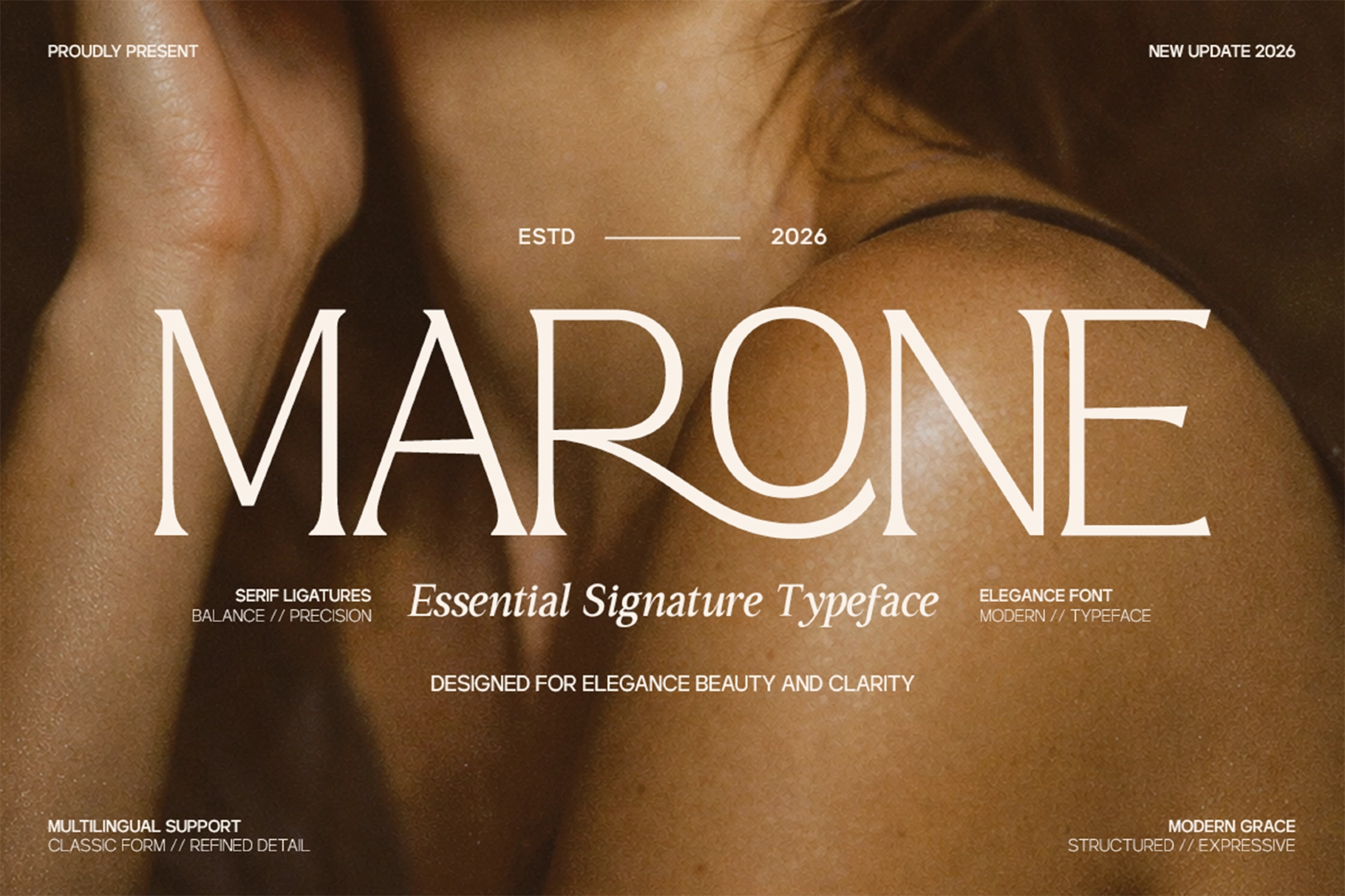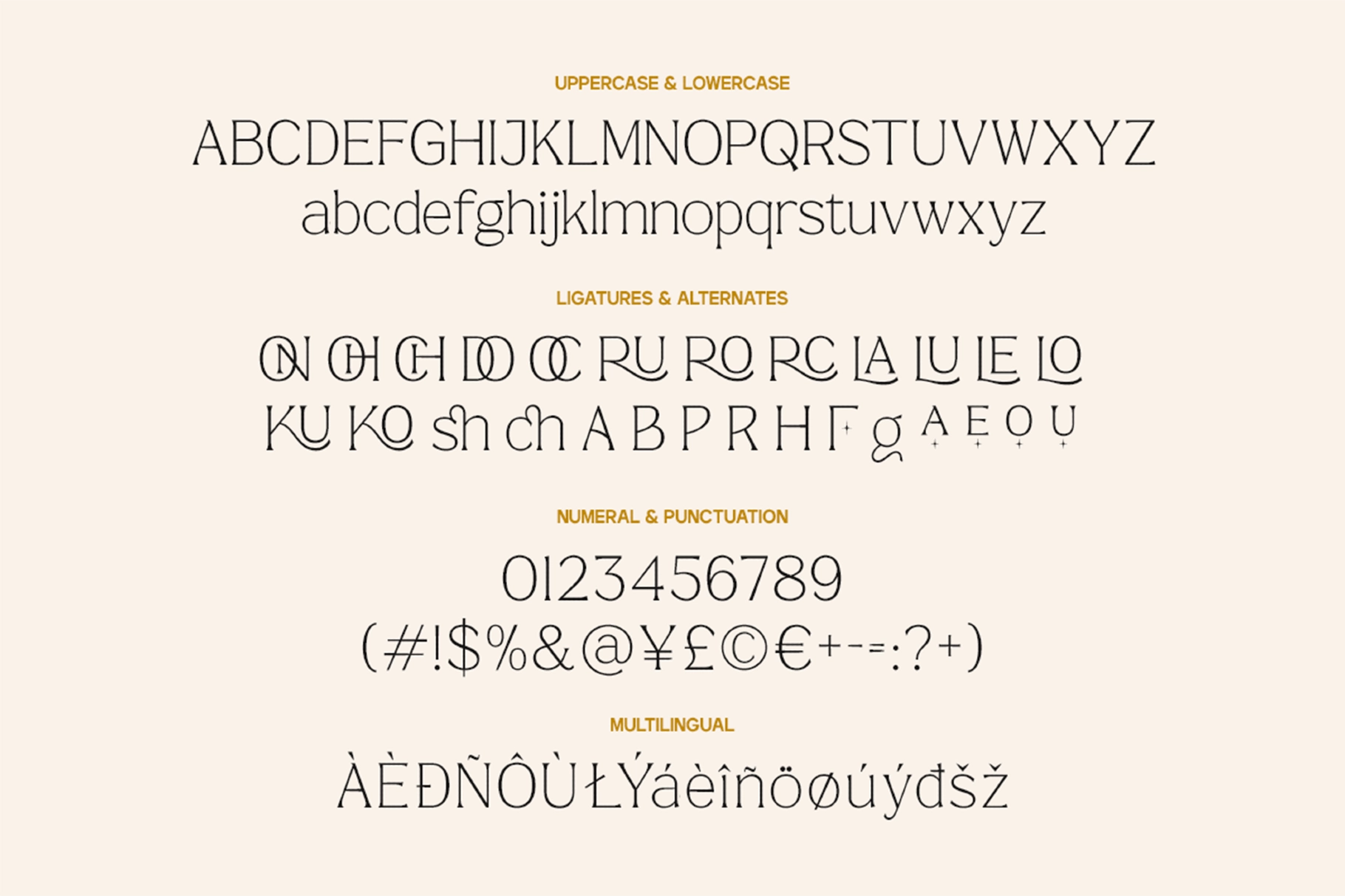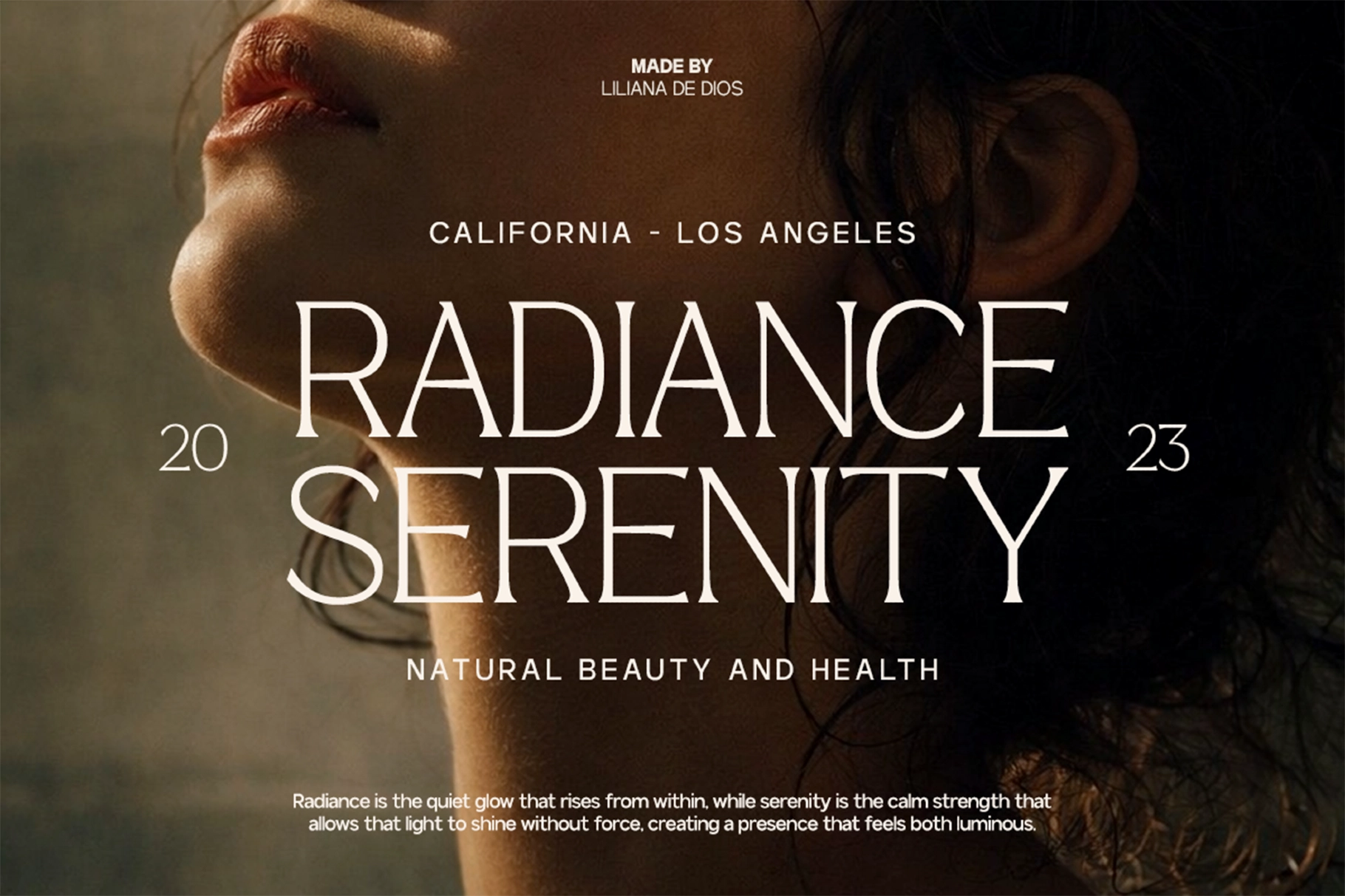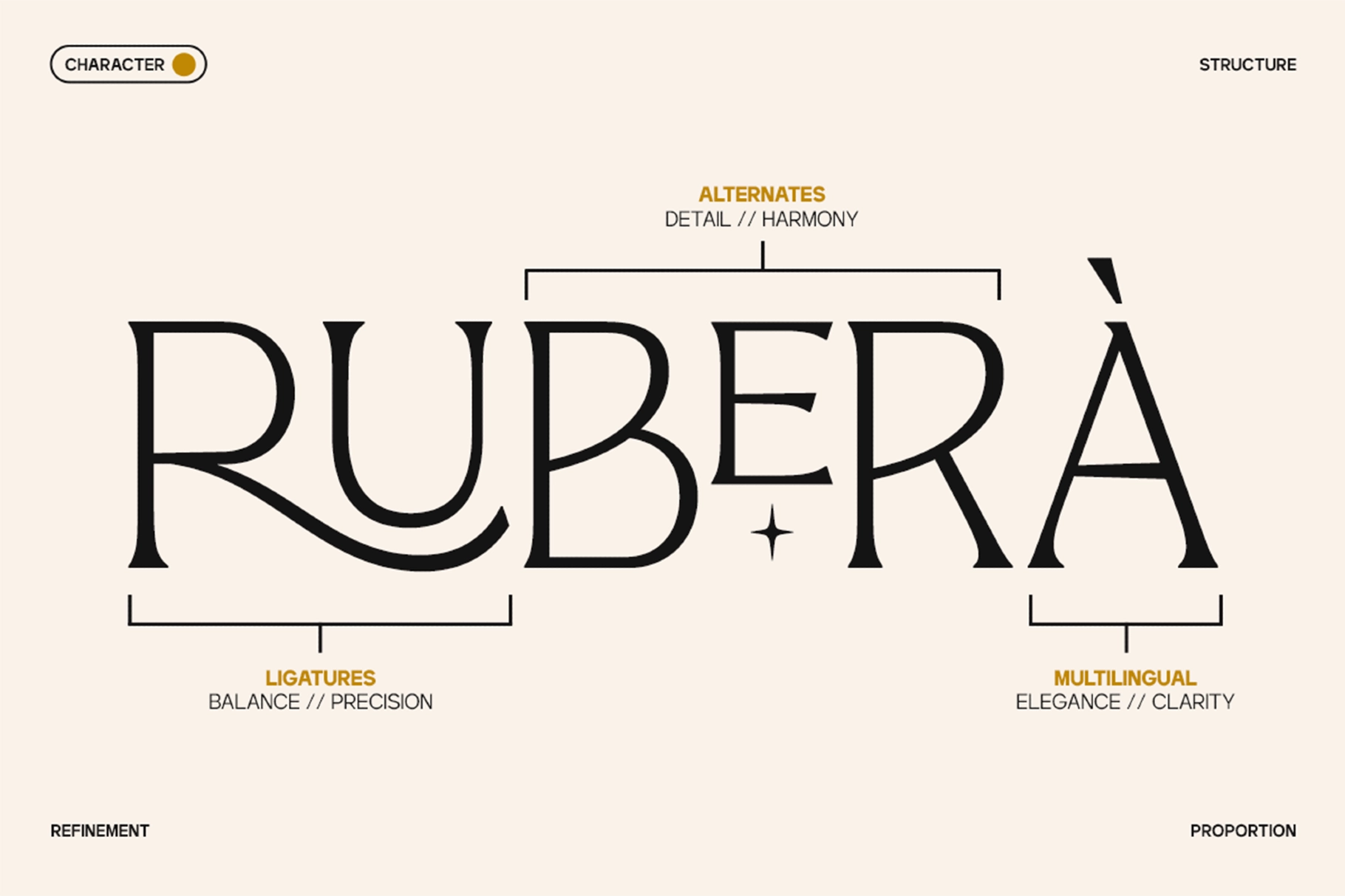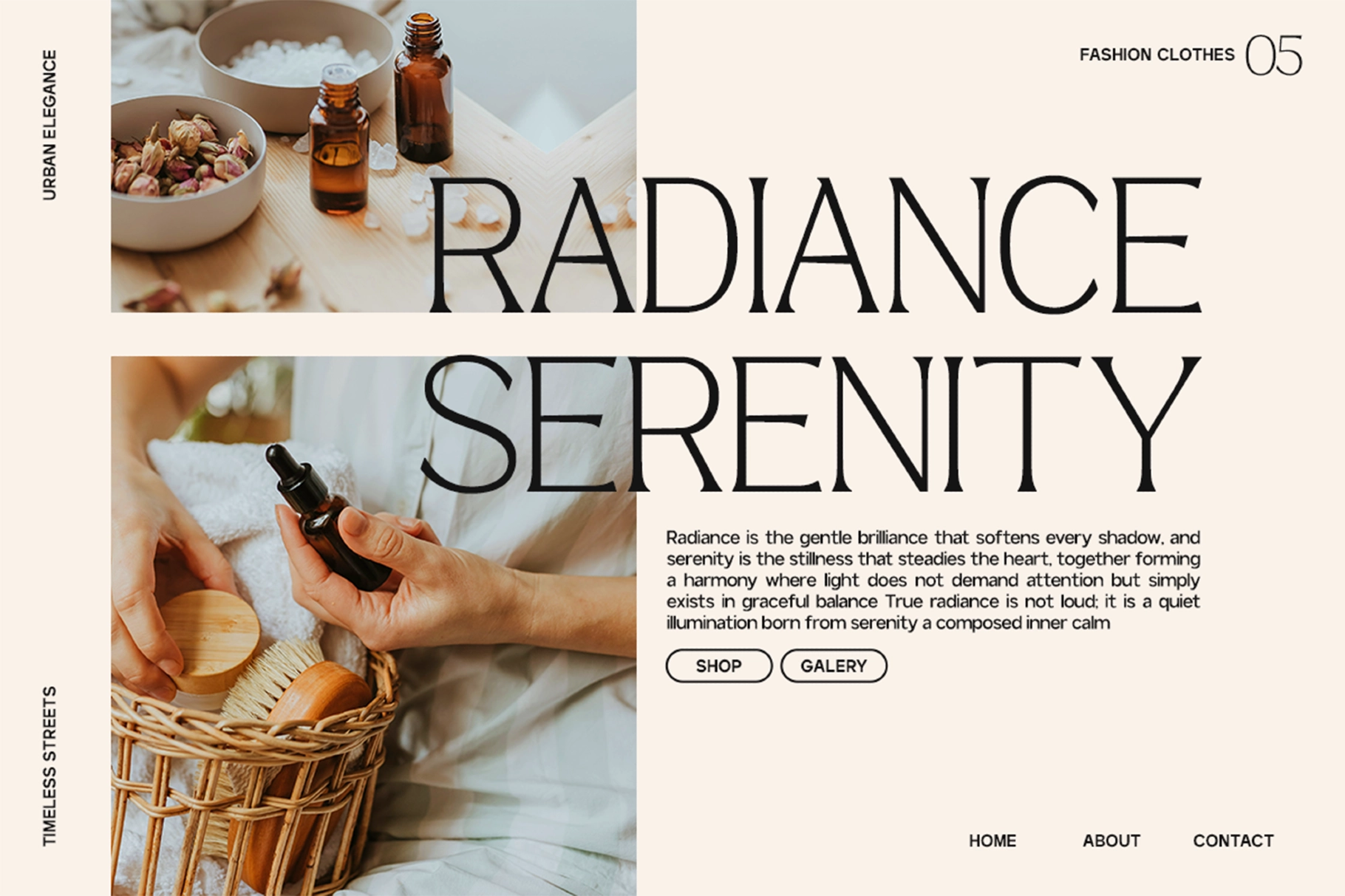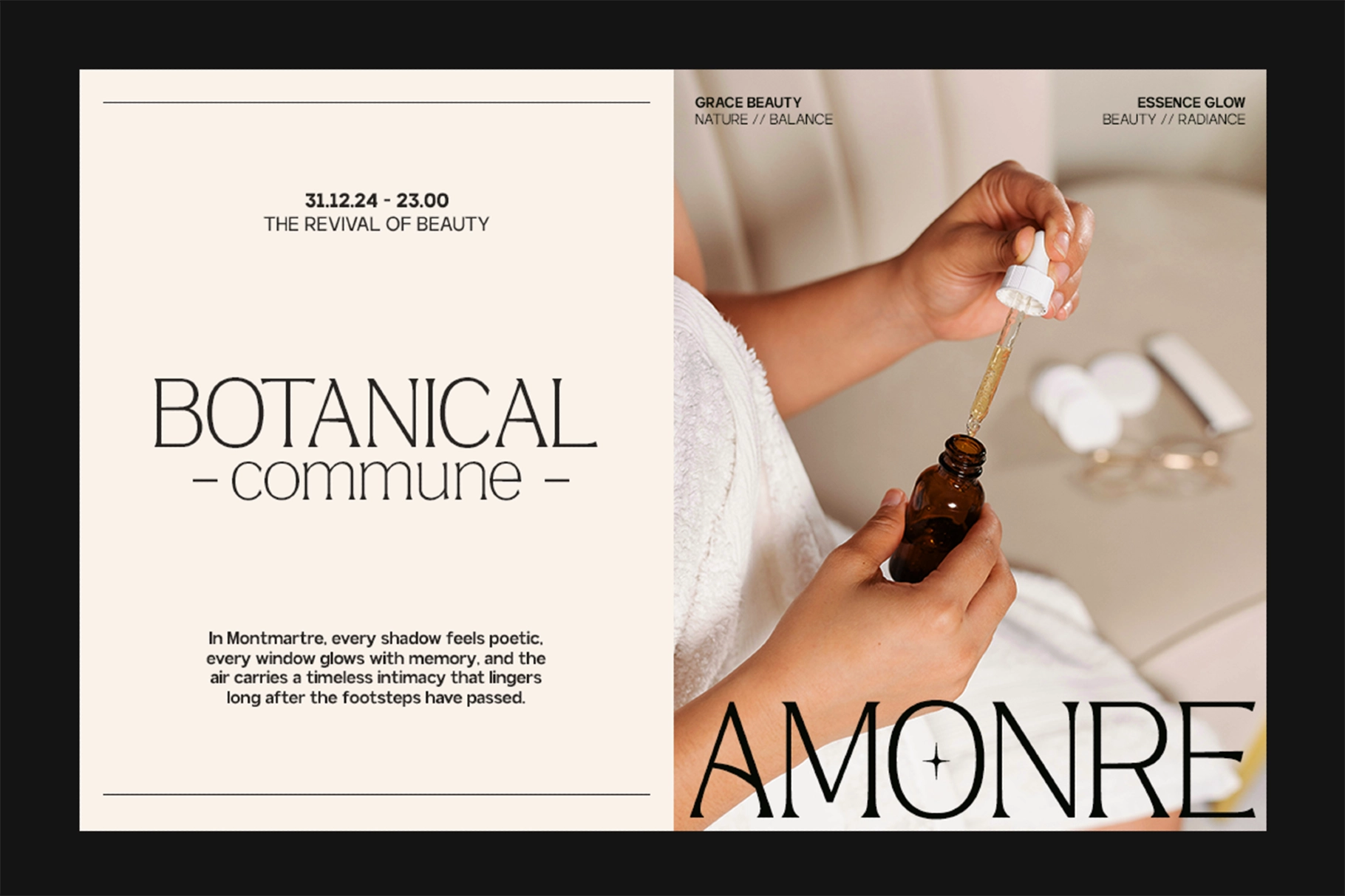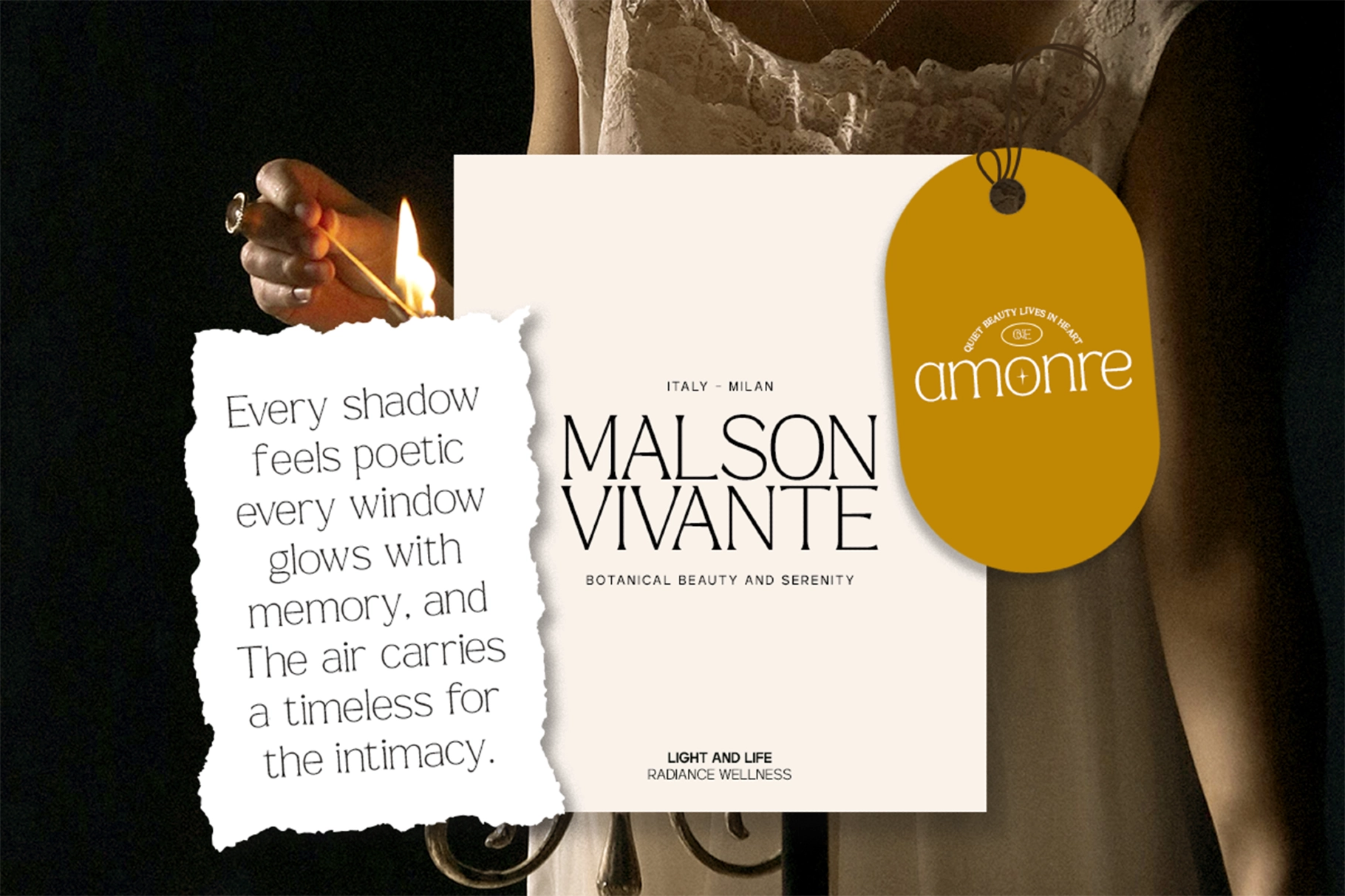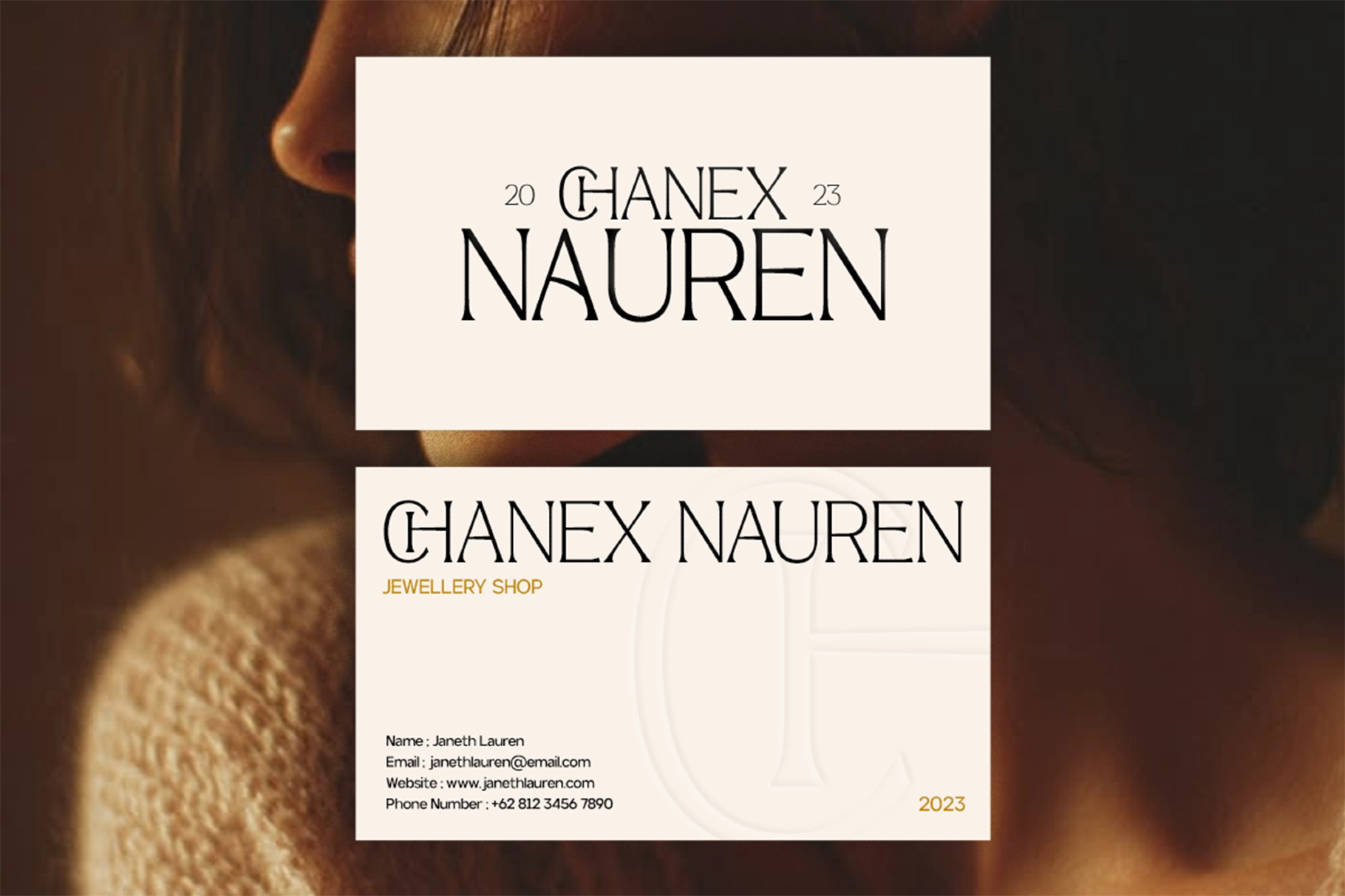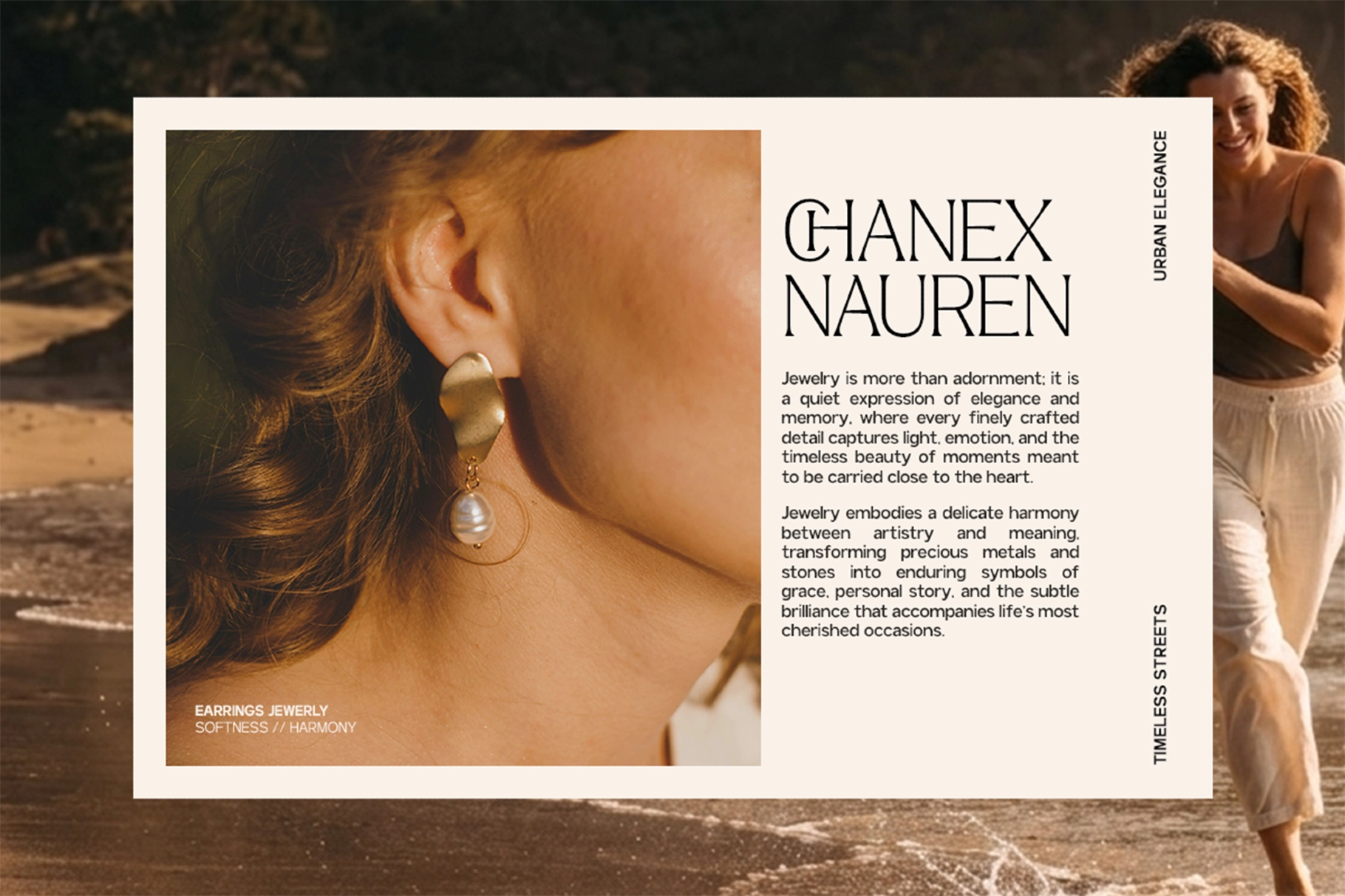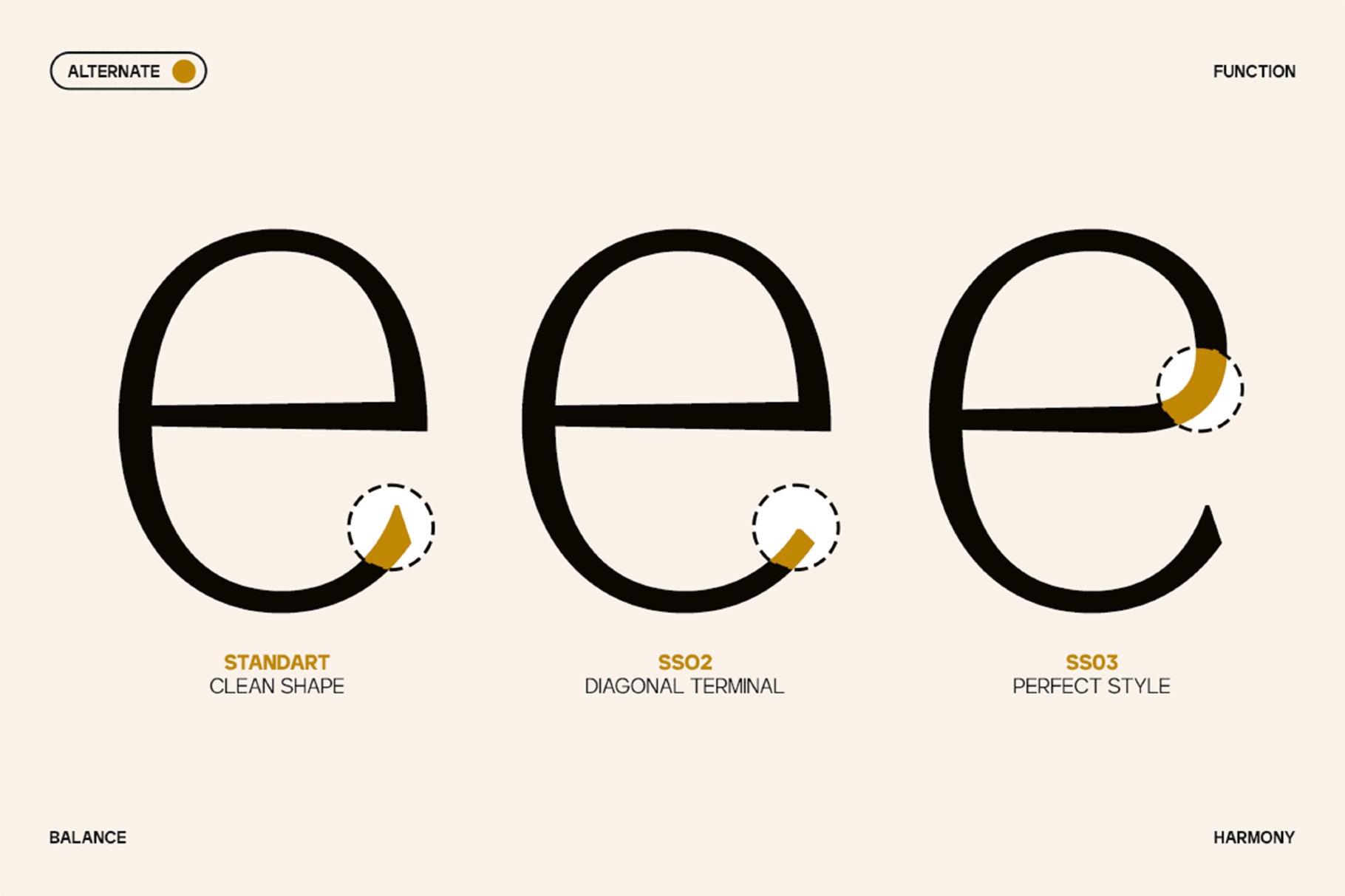
GC Marone - Elegant Serif Font
GC Marone
This elegant serif pairs poised proportions with graceful curves and polished ligature work. Its letterforms are clear, expressive, and quietly ornate, giving headlines and display text a high-end editorial character without turning dramatic about it.
Marone works beautifully for luxury branding, boutique logos, wedding stationery, magazine titles, perfume packaging, fashion lookbooks, beauty labels, restaurant identities, invitation suites, social media quotes, website headers, business cards, and premium product launches. The signature-style connections add a graceful rhythm, while the serif structure keeps the typography composed and readable.
- Refined ligatures & signature flow
- Numbers & punctuation